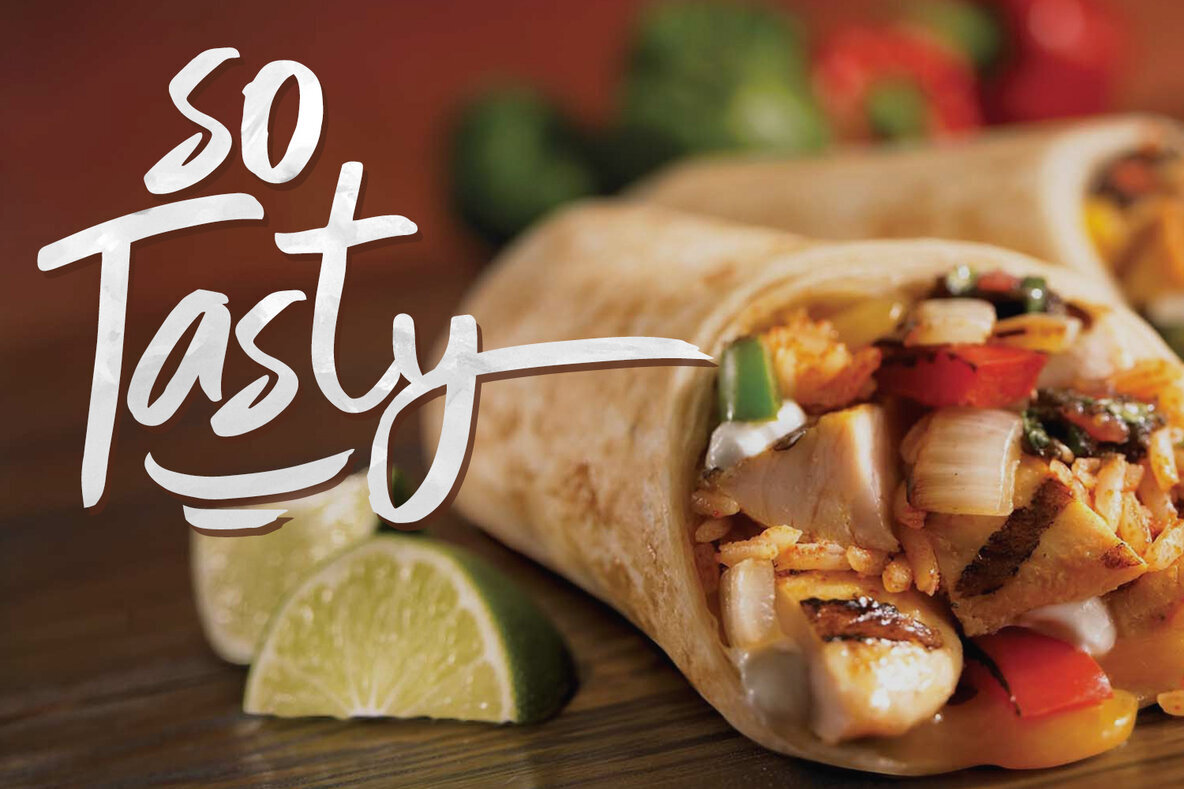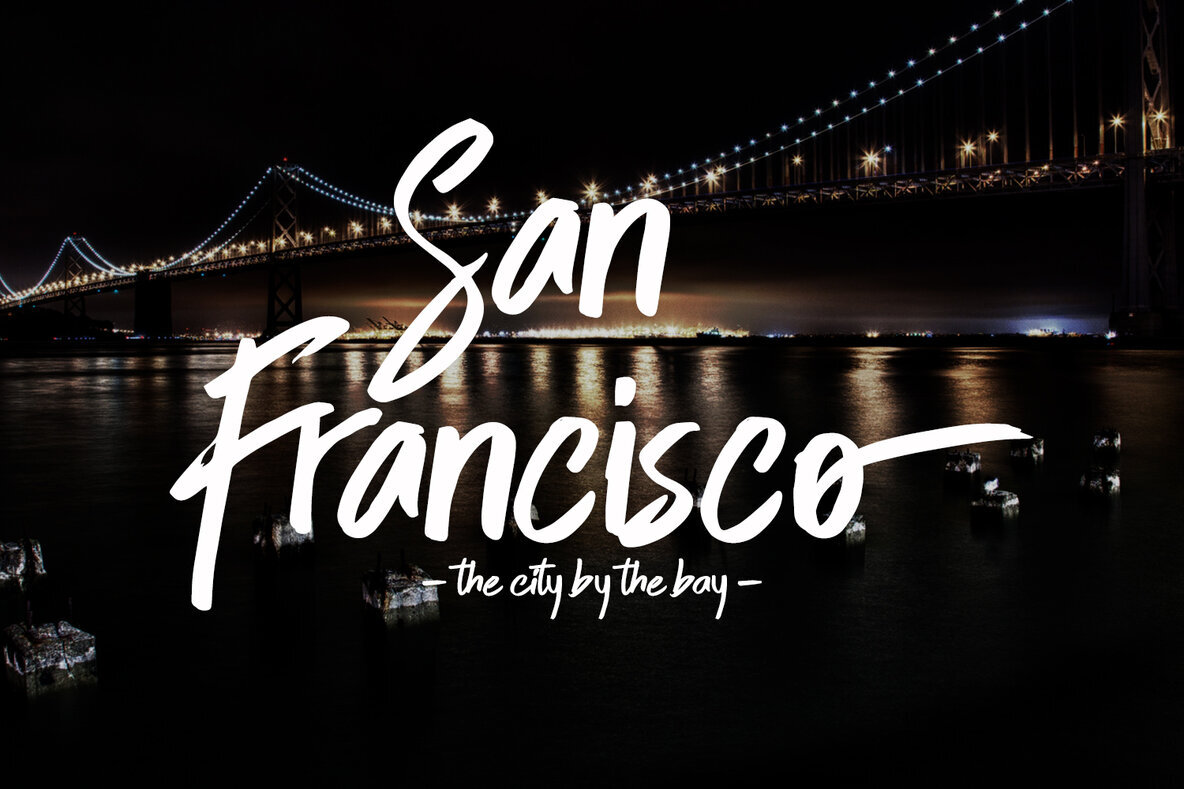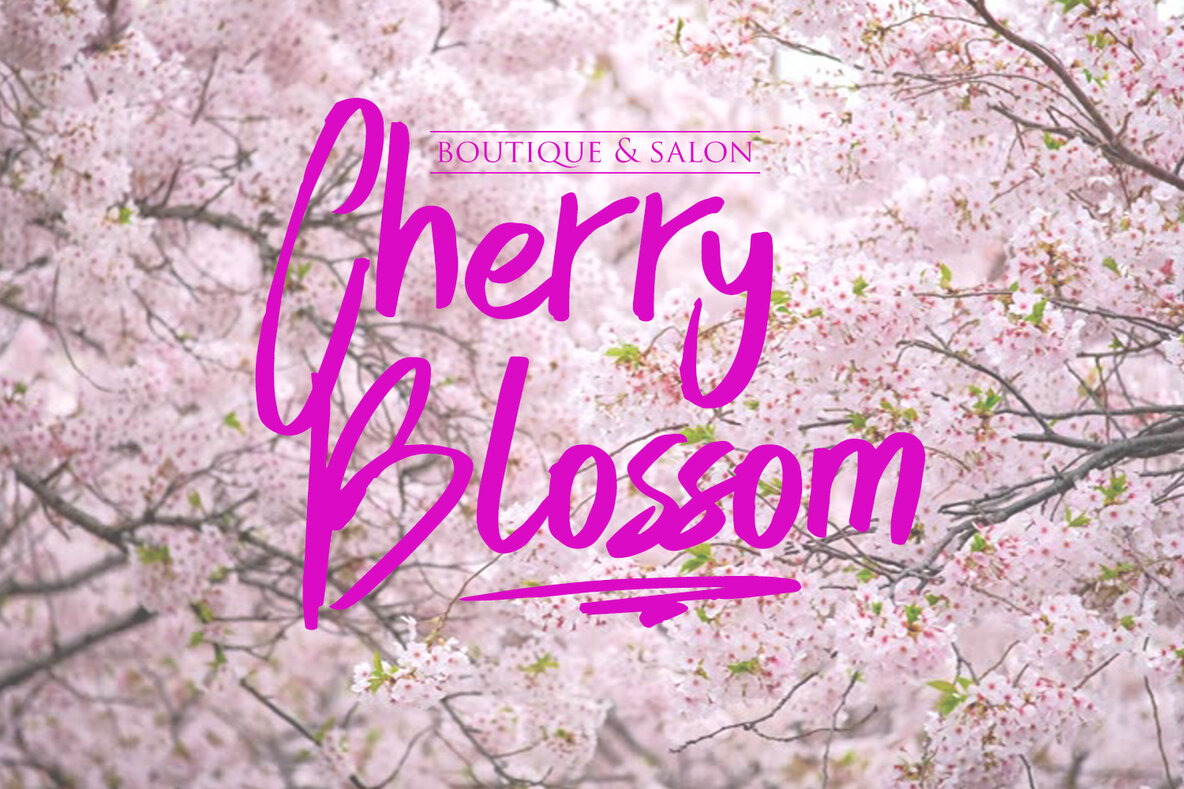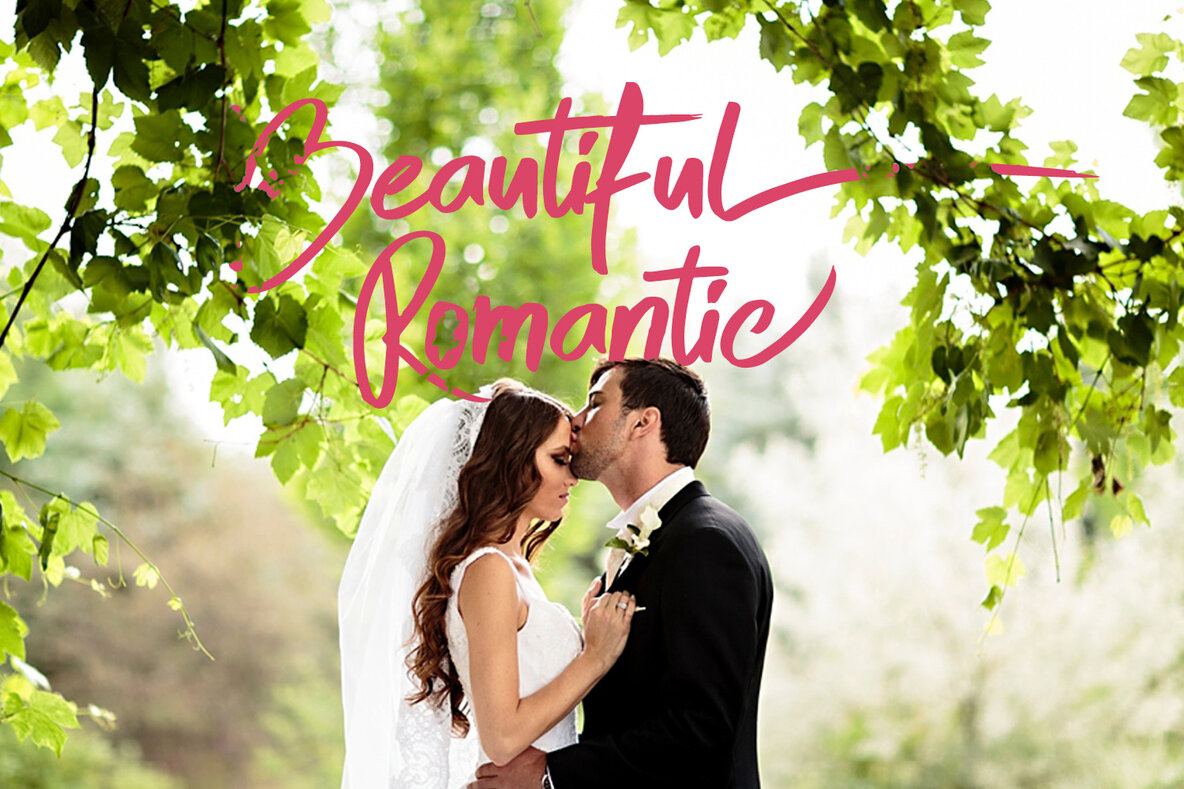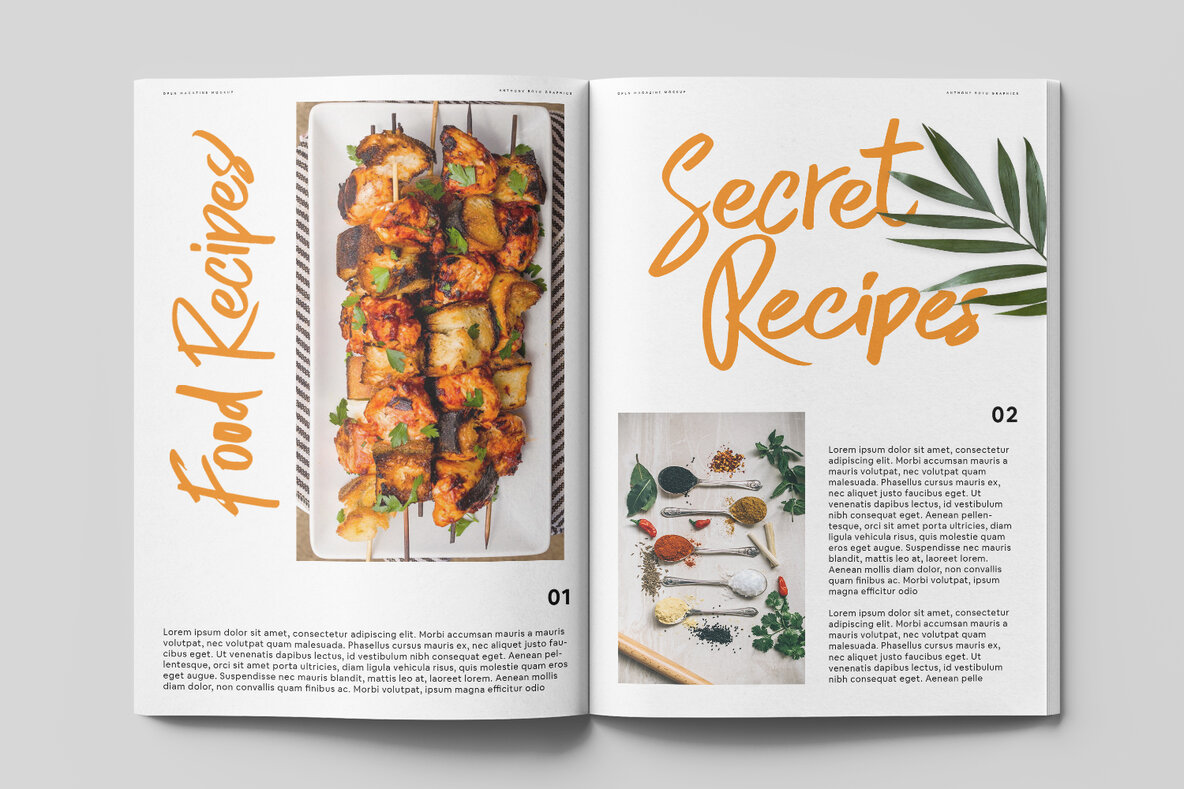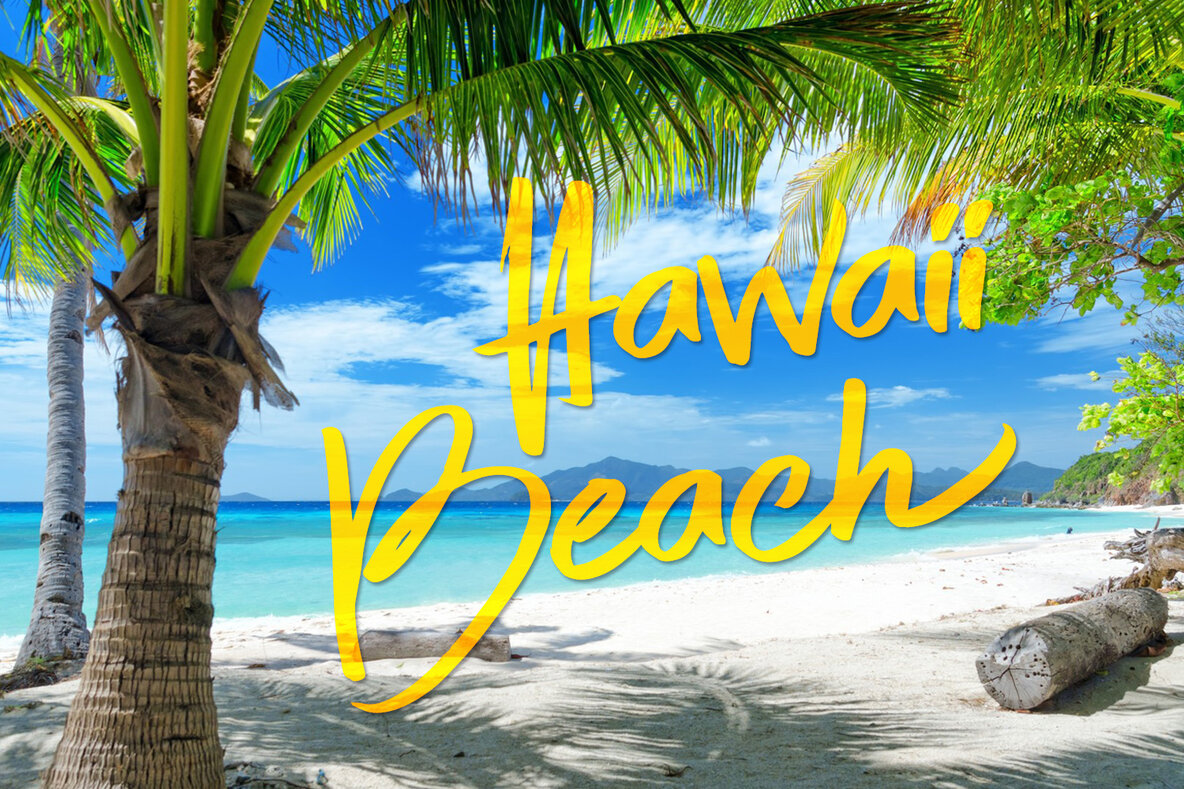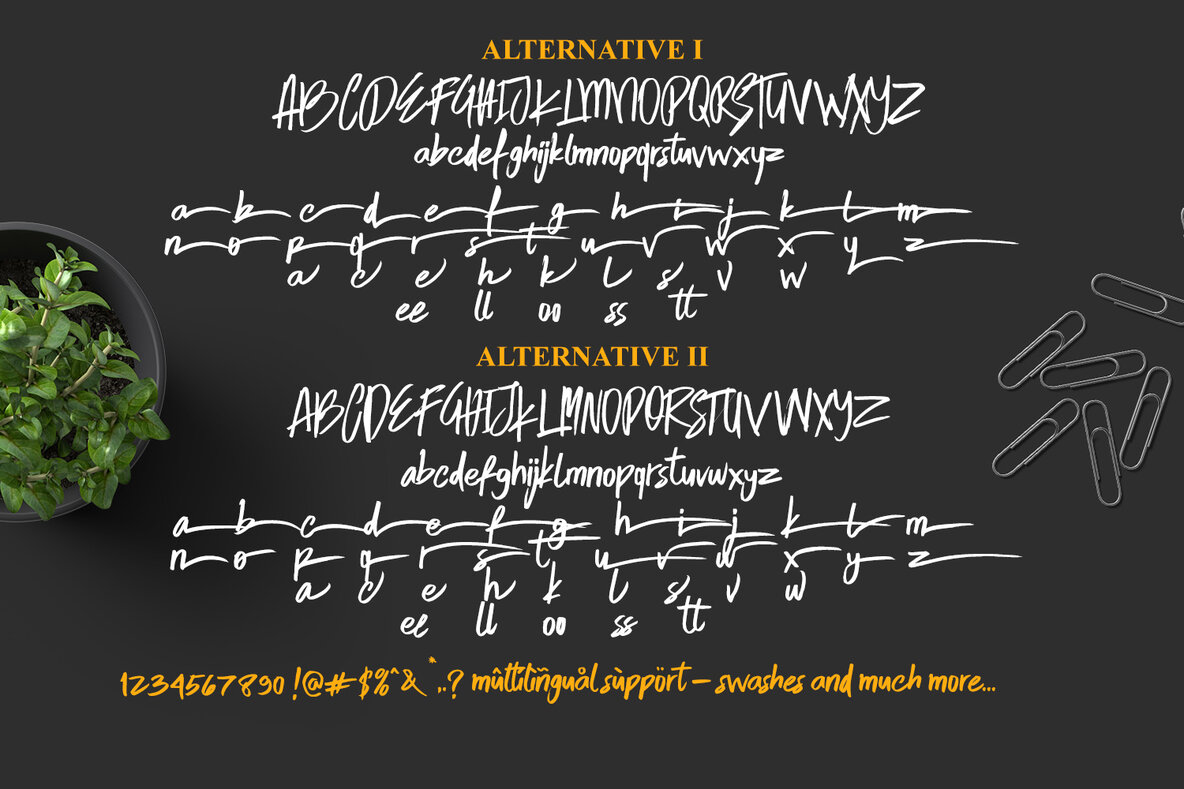
Skytree: A Modern Brush Script for Dynamic Designs
Skytree offers a captivating blend of creativity and versatility, making it an essential tool for graphic designers seeking to infuse their projects with dynamic energy. As a modern brush script, Skytree provides two distinctive styles, allowing for broad application across various projects and events. This font is well suited to enhance your design portfolio with its fluid strokes and artistic flair.
• Two Complementary Styles – Offers design flexibility and adaptability.
• Extra Swash Included – Adds a touch of elegance and uniqueness to your text.
• Perfect for Diverse Projects – Ideal for event branding, merchandise, and more.